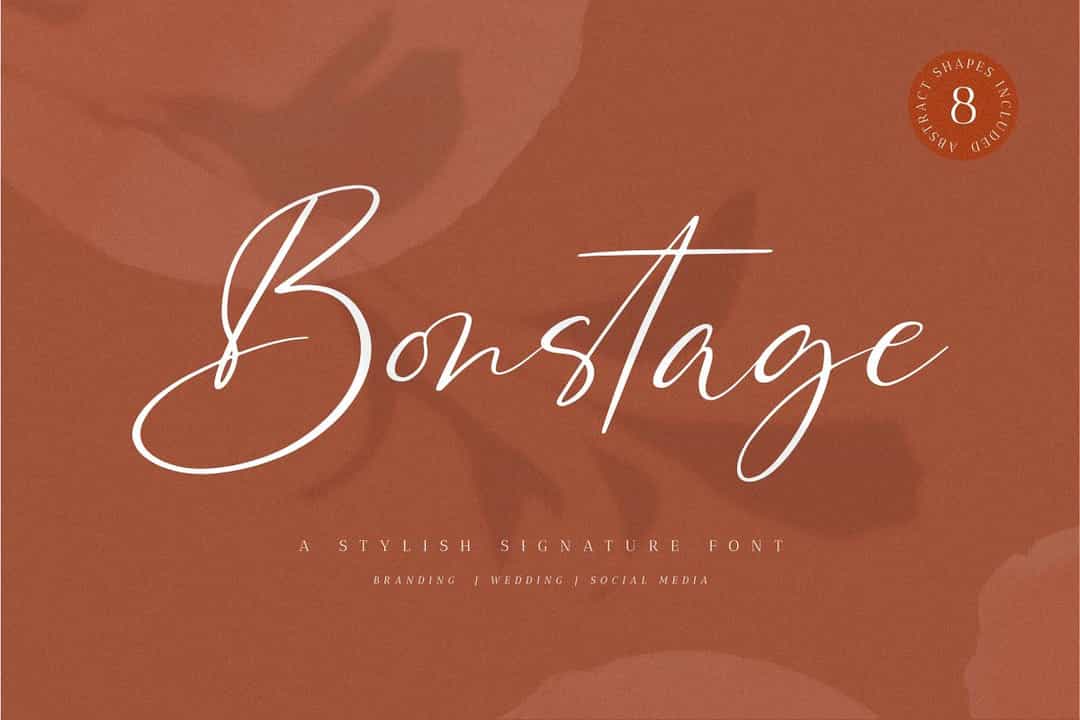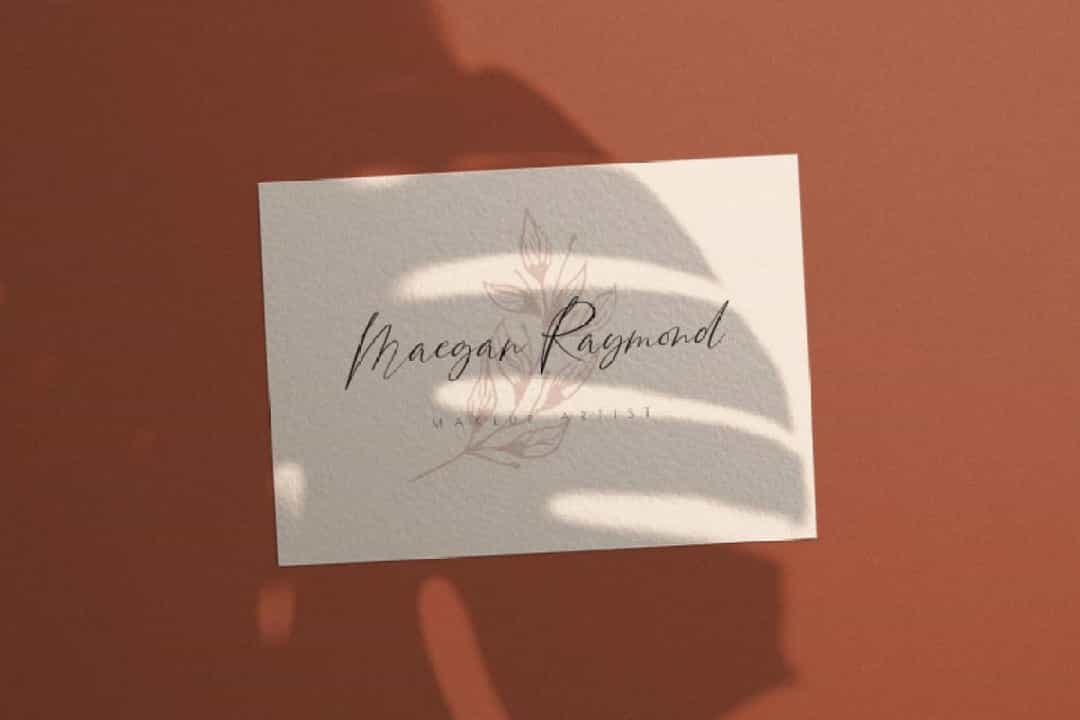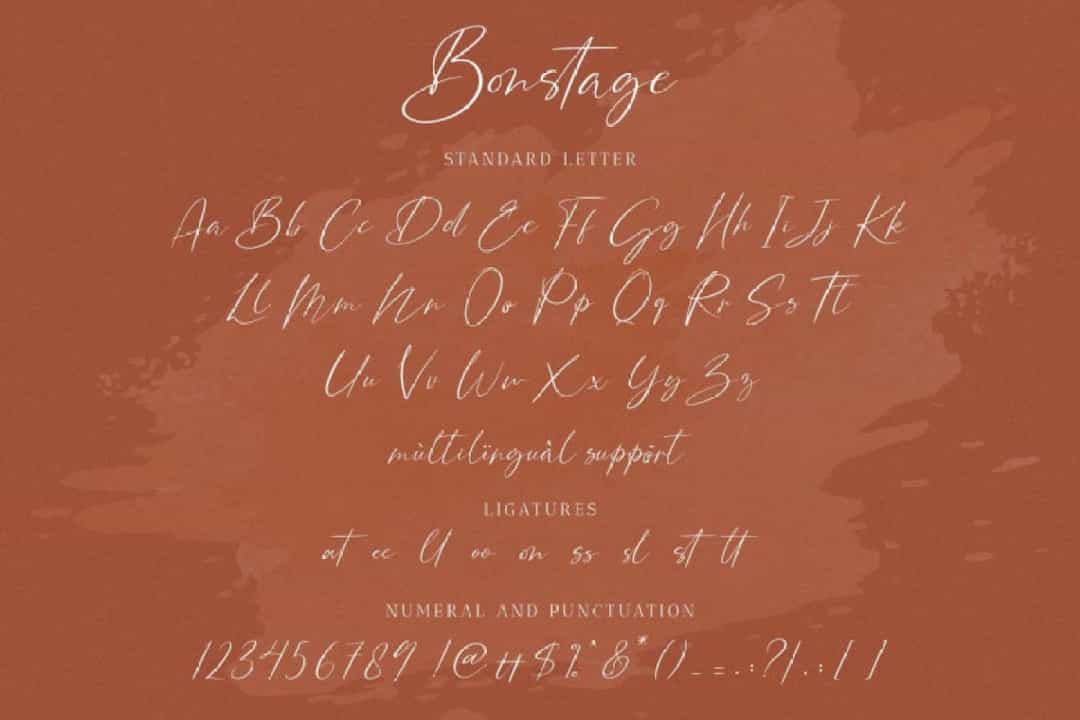
Discover Bonstage Handwritten Script Font, part of the Handwritten Script collection—a versatile and unique font perfect for adding a personal touch to your projects. Download it for free and enjoy crafting designs with style, from invitations to social media posts. This font is available exclusively for personal use, giving you the freedom to create without limits. Unlock your creativity with Bonstage Handwritten Script Font today!
Bonstage Fonts in combination with Abstract Shapes include the highest design and quality factors, they can be applied to design wedding invitations, stationery wrappers, patterns for fashion textiles and posters as well as bridal decorations, gift ideas, quotes for the blog posts, wallpapers, stickers, etc.